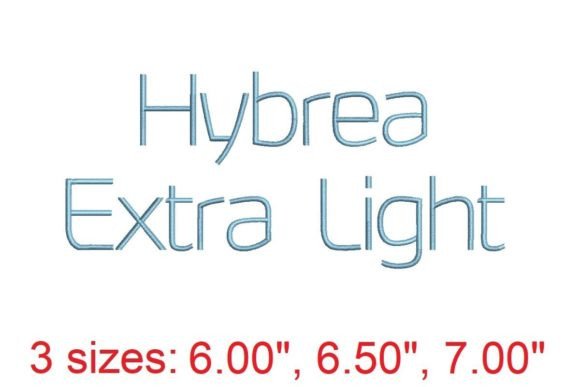
Hybrea XI Embroidery Font Review
The First Impression of Hybrea XI
From the moment I opened the Hybrea XI embroidery font, I was struck by its refined elegance. The design exudes a sense of sophistication without being overly ornate. Its clean lines and balanced proportions make it immediately appealing for a wide range of projects. The font has a timeless quality that feels both modern and classic, making it versatile for different styles and themes.
The layout is well-structured, with consistent spacing and clear letterforms. It’s designed to be readable at various sizes, which is crucial for embroidery projects where scale can vary significantly. Whether you’re stitching a small patch or a large tote bag, Hybrea XI maintains its visual integrity.
Real-Life Use Case: Custom Tote Bag for Back To School
I recently worked on a custom tote bag project for a Back To School campaign. The client wanted a design that felt professional yet approachable—something that could be used for both personal and commercial purposes. Hybrea XI fit perfectly into this scenario.
On the tote bag, the font looked crisp and polished. It added a touch of class without overpowering the design. The customer loved how it complemented the overall aesthetic of the bag. For a small business owner or Etsy seller, this kind of font can elevate a handmade product and make it more appealing to buyers looking for quality and style.
Performance in Different Embroidery Projects
Hybrea XI performs well across a variety of embroidery projects. On custom apparel like sweatshirts and t-shirts, it holds up well under stitch density and fabric movement. The design doesn’t fray or distort easily, which is essential for long-lasting embroidered items.
For baby items, the font’s clarity and simplicity are a big plus. Parents often prefer clean, easy-to-read fonts for baby clothes and nursery decor. Hybrea XI delivers that without being too rigid or formal. It works equally well on aprons, pillow covers, and tea towels, where visual appeal and readability matter just as much as durability.
On caps and hats, the font adapts well to curved surfaces. However, it’s important to ensure the hoop size is appropriate and that the stabilizer is sufficient to prevent shifting during stitching. For holiday or wedding gifts, the font adds a level of refinement that makes the finished product feel special.
Where to Use With Caution
While Hybrea XI is generally reliable, there are situations where extra care is needed. On small hoop sizes, the font may require adjustments to maintain detail. Thin or stretchy fabrics can also pose challenges, as they may not hold the stitches as well as heavier materials.
Dark fabrics can sometimes make the font less visible, especially if the thread color isn’t chosen carefully. Textured or layered garments might cause the design to appear less sharp. Tiny lettering or dense stitch areas could lead to puckering or distortion if not handled properly.
When using Hybrea XI for decorative accents or intricate corners, it’s wise to test the design first. The font is best suited for projects where clarity and consistency are priorities.
Impact on Visual Appeal and Customer Perception
Hybrea XI enhances the visual appeal of any embroidery project. Its clean, professional look can increase the perceived value of a handmade product, making it more attractive to customers. For a small shop product or an Etsy listing, this can mean the difference between a sale and a pass.
Stitching clarity is another strong point. The font’s structure ensures that each letter is distinct and well-defined, even when stitched with minimal detail. This helps build customer trust, as it shows attention to craftsmanship and quality.
As a designer, I appreciate how Hybrea XI supports brand consistency. Whether you’re creating personalized gifts or boutique merchandise, having a reliable font that matches your aesthetic is essential. It also improves giftability, as the design feels thoughtful and intentional.
Practical Designer Notes
Before using Hybrea XI in a project, always test it on scrap fabric. This helps identify any issues with stitch density, thread color contrast, or fabric compatibility. Check the stabilizer type and ensure it’s suitable for the material you’re working with.
For printable mockups or digital product previews, Hybrea XI looks great in black and white. Compare it against light and dark fabric backgrounds to see how it performs in different settings. If you’re using it for a craft business or small shop, consider how it will look on different types of merchandise.